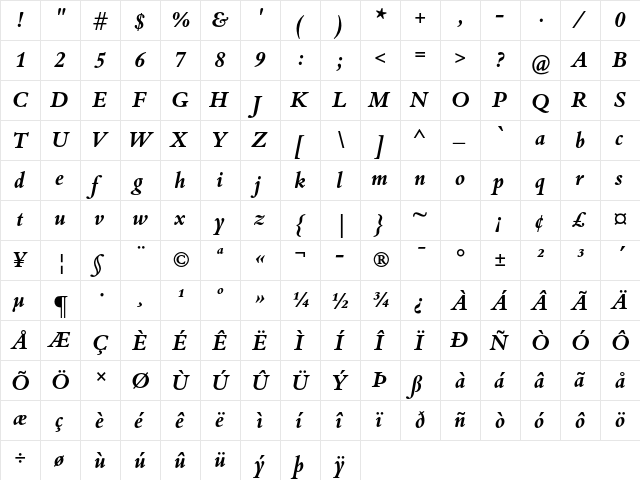
Bembo Book MT Std Bold Italic
Design Context for Bembo Book MT Std Typeface
Bembo Book MT Std is a composed and adaptable typeface that performs quietly and consistently across a wide range of design contexts. The slanted form adds forward momentum and visual energy. Its bold stroke weight gives it real presence on the page.
Pro Tip: Use Bembo Book MT Std for emphasis, pull quotes, and subheadings where its slanted energy can add rhythm to the layout.